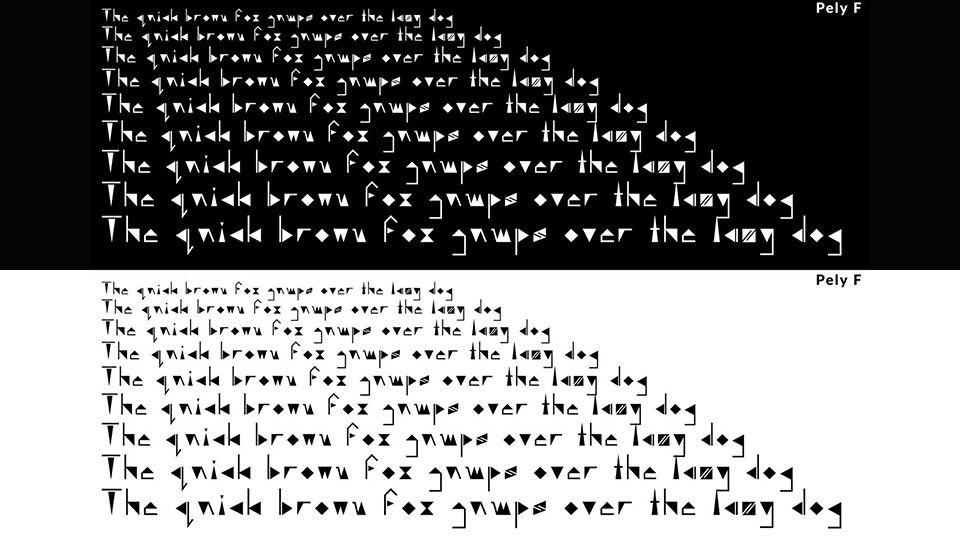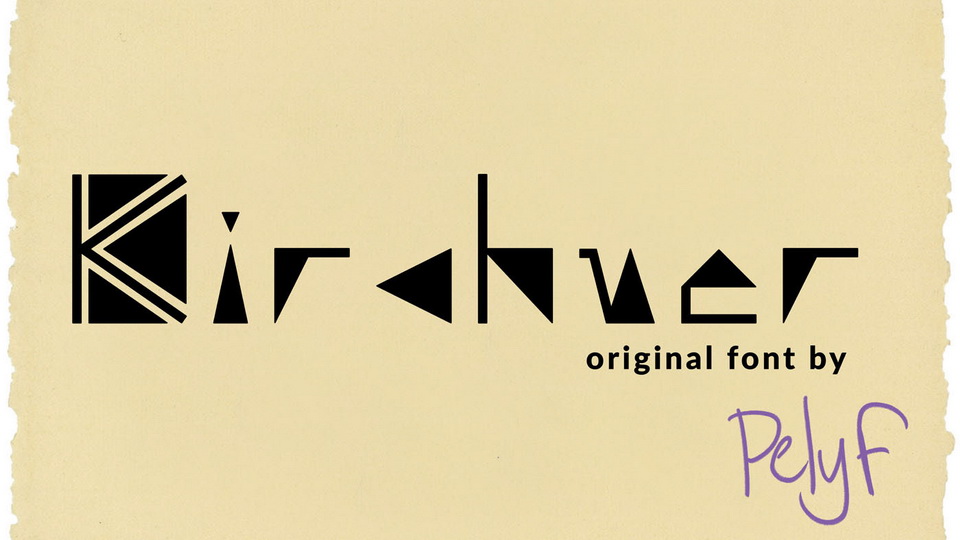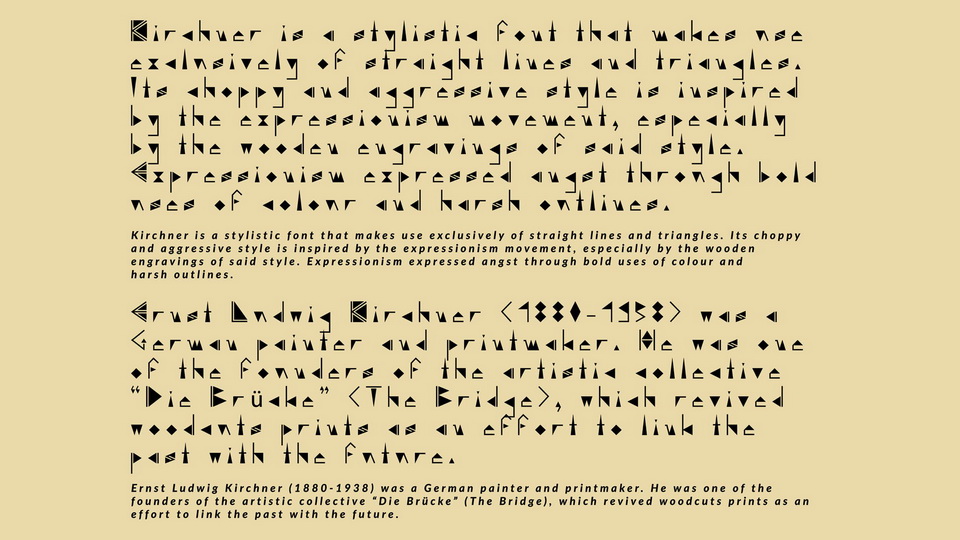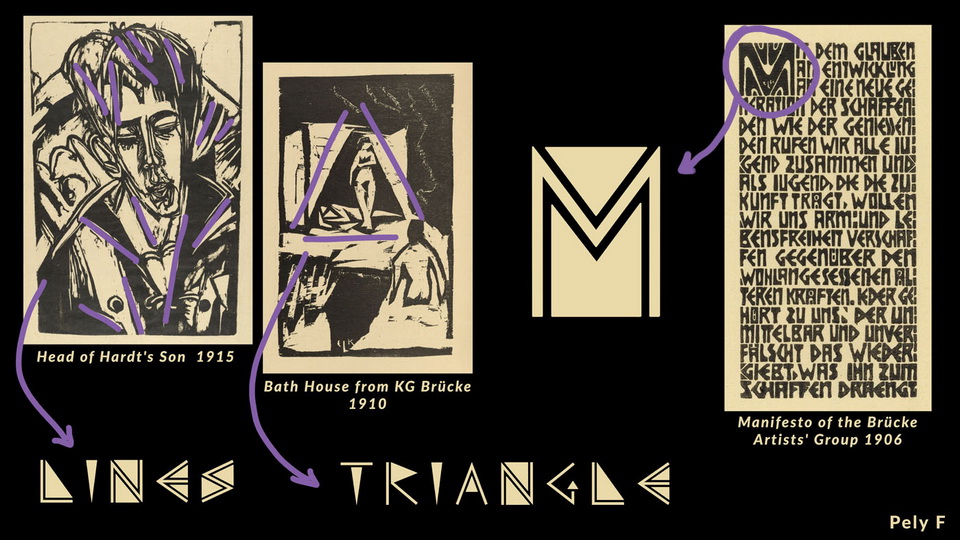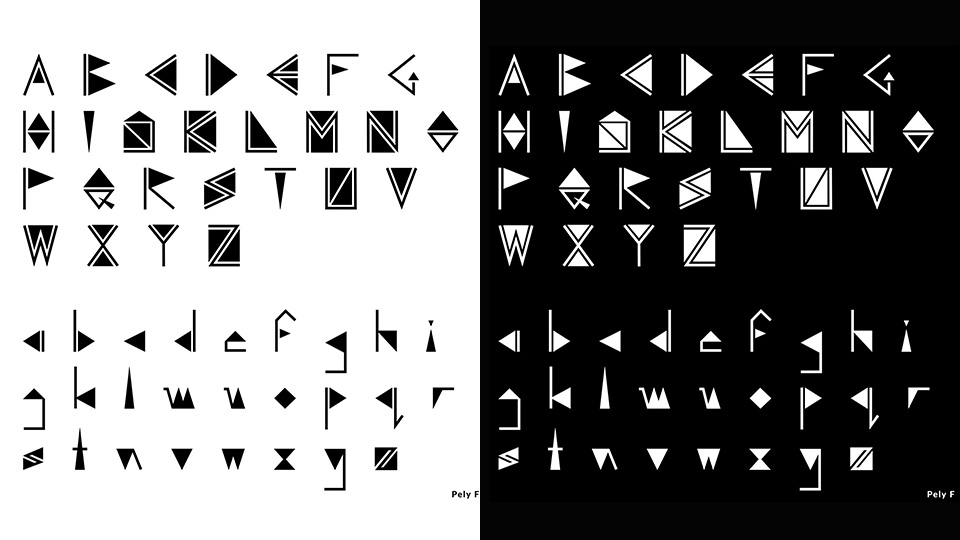
Kirchner Font
Kirchner is a stylistic font that makes use exclusively of straight lines and triangles. Its choppy and aggressive style is inspired by the expressionism movement, especially by the wooden engravings of said style. Expressionism expressed angst through bold uses of colour and harsh outlines.
Ernst Ludwig Kirchner (1880-1938) was a German painter and printmaker. He was one of the founders of the artistic collective “Die Brücke” (The Bridge), which revived woodcuts prints as an effort to link the past with the future.
“I designed Kirchner from November 2019 to June 2020. It was an ambitious attempt to embark in this designing journey, especially since I was just starting to dip my toes in graphic design.”